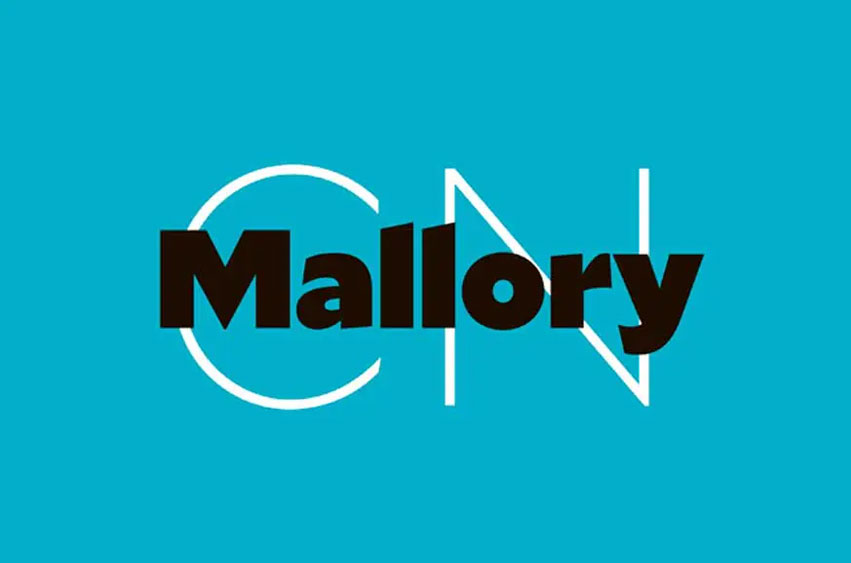
Mallory Font
Mallory Font family began as a personal experiment in dual citizenship: part British and part American, and based upon a long relationship with mixed heritage and nuanced palettes.
Through 110 weights and five widths, Mallory treats history and complex identity as a launchpad.